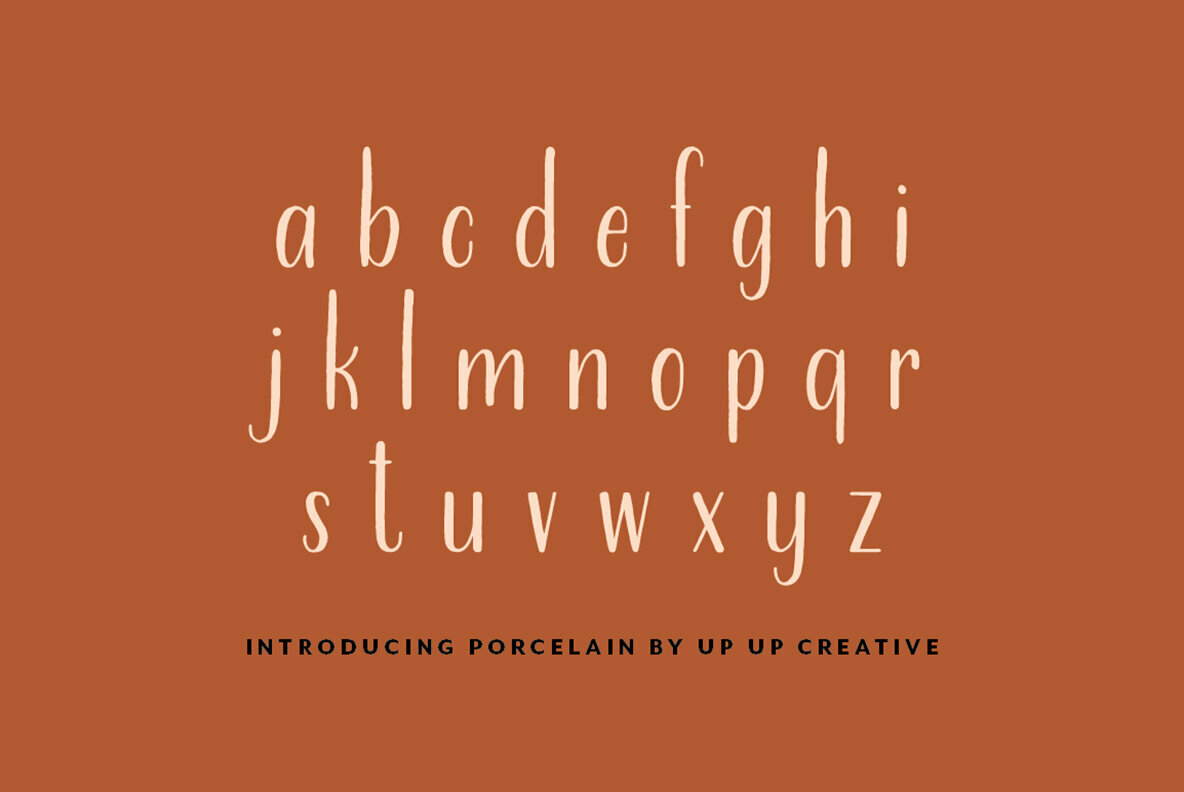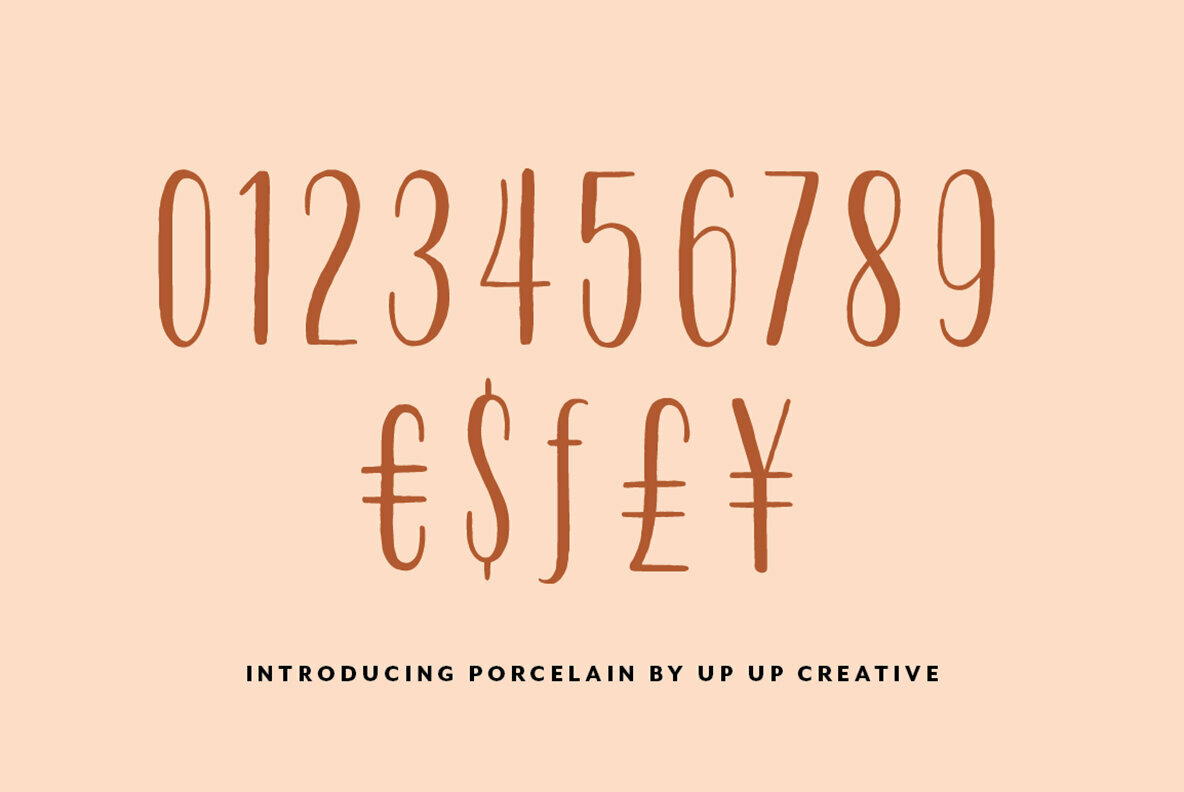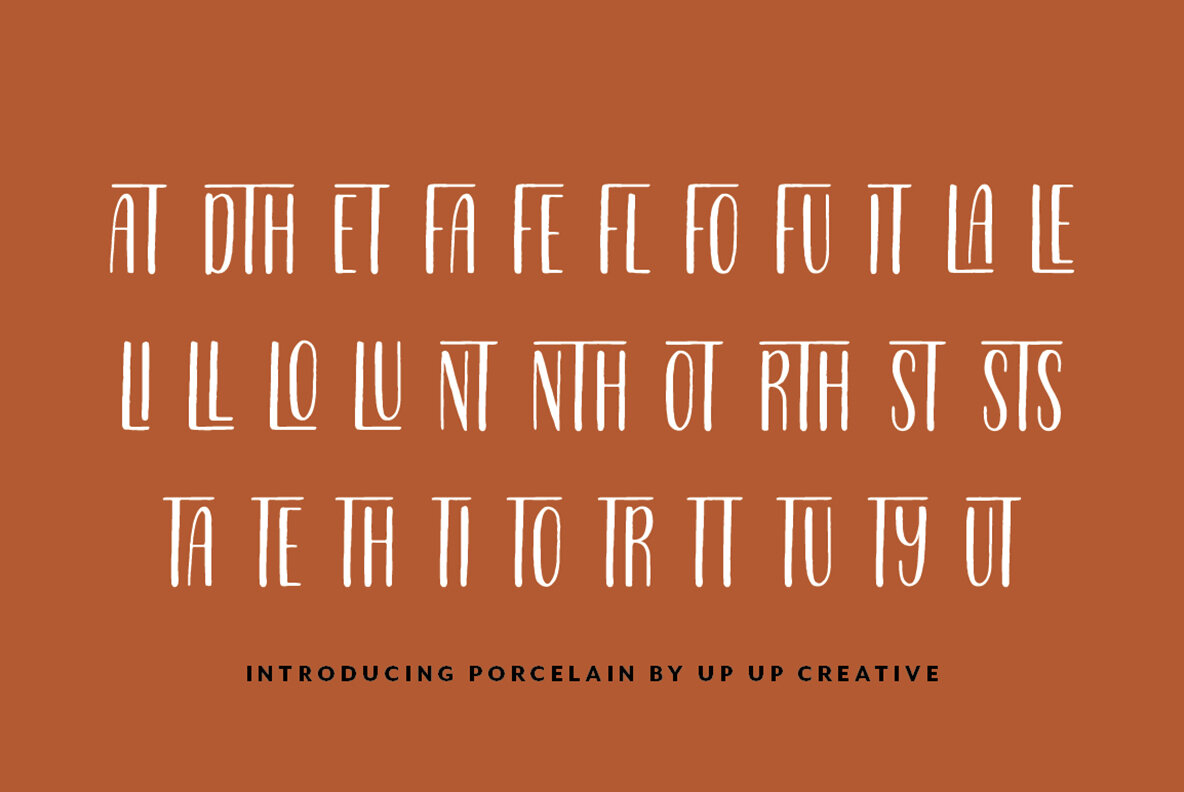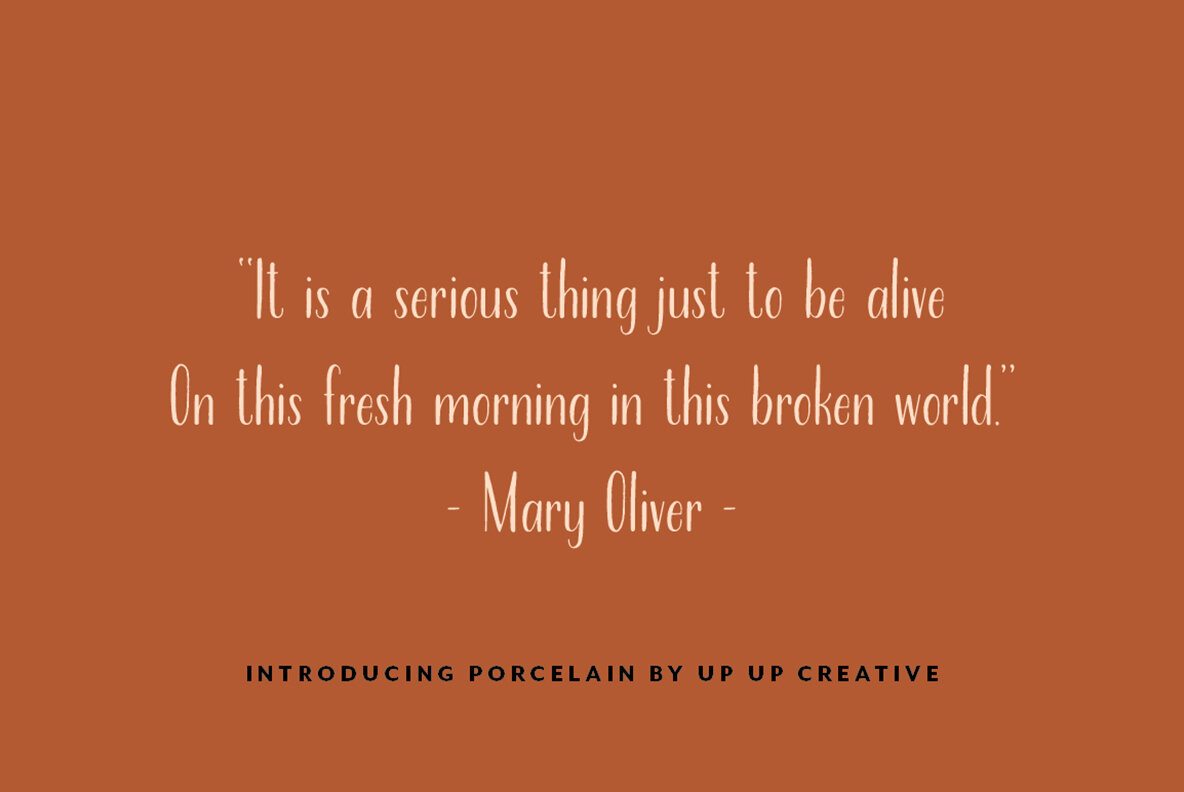
Porcelain Font
Porcelain Regular
Porcelain, a hand-lettered condensed sans serif font with subtle dip-pen calligraphy texture and some fun OpenType features. Porcelain is perfect for invitations, branding, and editorial design and can be dressed up or down depending on your needs.
Porcelain comes with more than 436 glyphs! Specific OpenType features include stylistic alternates, standard and discretionary ligatures, and multilingual support (including multiple currency symbols).